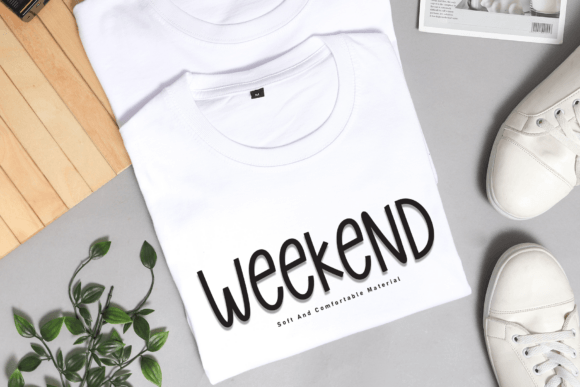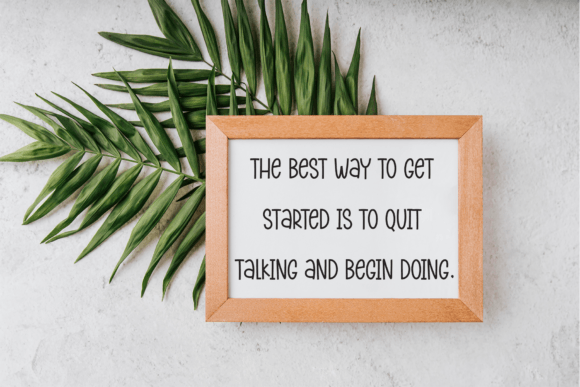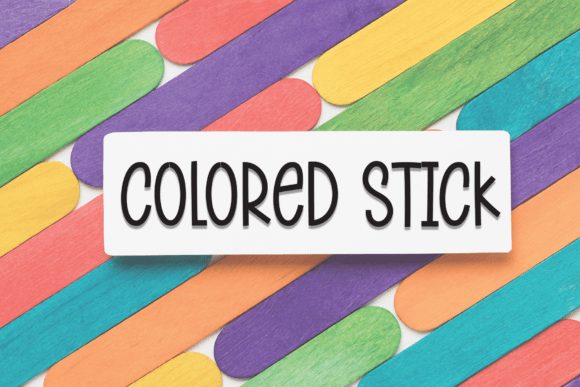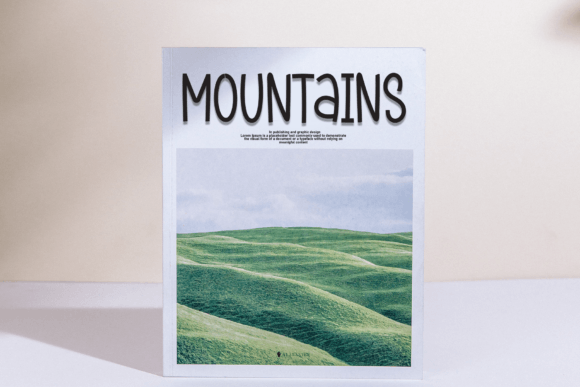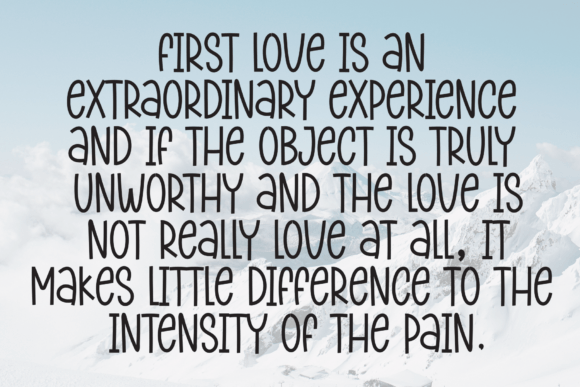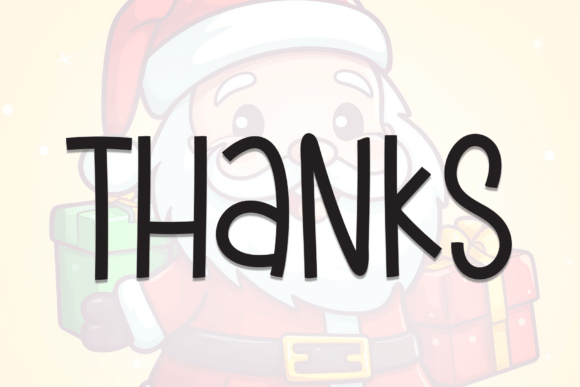
The Magic of Cute Santa Font: A Designer’s Delight
Ah, the joy of stumbling upon the perfect font for your design project! It’s like finding the missing piece to a puzzle. I recall working on a wedding invitation project last year, struggling to find a font that exuded both whimsy and elegance. That’s when I discovered the charming Cute Santa Font, and it instantly became my go-to choice. In this article, I’ll share my experience with this delightful font, its features, and how to make the most of it in your designs.
So, what makes Cute Santa Font so special? Here are a few things I love about it:
- ✨ Exceedingly expressive and endearing, perfect for adding a touch of personality to your designs
- ✅ Whimsical yet elegant, making it suitable for a wide range of projects, from wedding invitations to personalized cards
- 💕 Handcrafted with love, giving it a unique and authentic feel
Of course, no font is perfect, and Cute Santa Font has a few minor quirks:
- 🤔 Some characters may appear a bit cramped at smaller font sizes, so be sure to adjust the tracking accordingly
- ⚠️ Limited availability of certain special characters, but this can be worked around with creative substitutions
- Take advantage of OpenType features, such as stylistic alternates and glyphs, to add an extra layer of personality to your design
The Story Behind Cute Santa Font
Cute Santa Font was designed with love and care by a talented font designer who wanted to create a font that would bring joy and excitement to creative projects. Inspired by the magic of the holiday season, this font is perfect for designers and crafters looking to add a touch of whimsy to their work.
| Font Name | Cute Santa Font |
| What makes Cute Santa Font so special? | Cute Santa Font is a handcrafted display font that exudes a sweet camaraderie of whimsy and elegance, making it perfect for a wide range of creative projects. |
In conclusion, Cute Santa Font is a delightful addition to any designer’s toolkit. With its whimsical yet elegant feel, it’s perfect for adding a touch of personality to your creative projects. Whether you’re a seasoned designer or a crafty hobbyist, this font is sure to bring joy and excitement to your work.